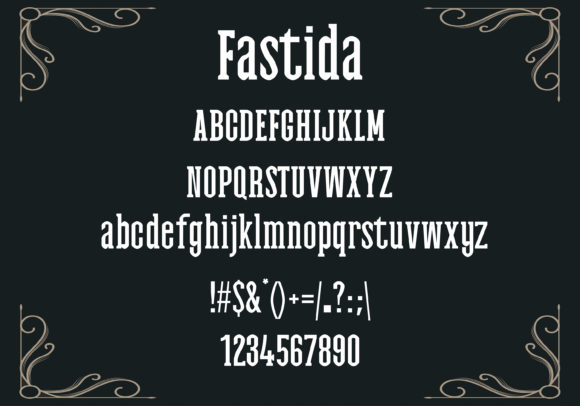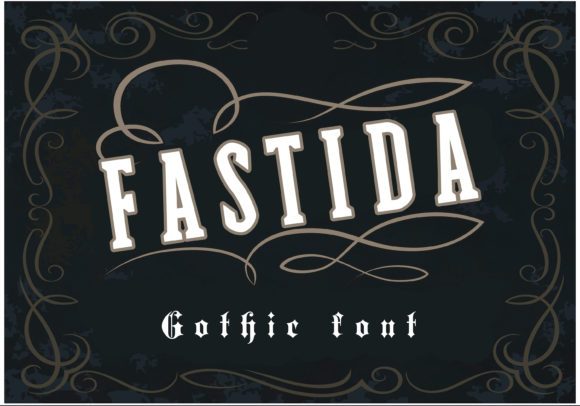
Introducing Fastida Font: The Bold and Authentic Serif Choice for Creative Projects
Are you tired of using the same old fonts for your creative projects? Look no further than Fastida, a bold and authentic serif font that’s sure to bring your ideas to life. In this article, we’ll take a closer look at what makes Fastida special and how you can use it to elevate your designs.
The Characteristics of Fastida Font
Fastida is a serif font that exudes confidence and sophistication. Its bold and sturdy design makes it perfect for headlines, titles, and any other text that needs to make a statement. The font’s authentic feel is reminiscent of classic typography, but with a modern twist that sets it apart from more traditional serif fonts.
One of the standout features of Fastida is its excellent legibility. Even at smaller sizes, the font remains clear and easy to read, making it suitable for a wide range of applications, from print materials to digital displays.
Using Fastida in Your Creative Projects
So, how can you use Fastida to bring your creative ideas to life? Here are a few ideas to get you started:
- Headlines and Titles: Fastida’s bold design makes it perfect for headlines and titles. Use it to grab attention and draw the reader in.
- Branding and Identity: Create a lasting impression with Fastida’s unique and authentic feel. Use it to develop a strong brand identity that sets you apart from the competition.
- Print Materials: From brochures to business cards, Fastida is a versatile font that works well in a variety of print materials.
- Digital Displays: Fastida’s legibility and bold design make it an excellent choice for digital displays, including website headers, social media graphics, and more.
Why Designers and Crafters Love Fastida
So, why are designers and crafters raving about Fastida? Here are a few reasons:
- Unique and Authentic: Fastida’s bold and authentic design sets it apart from more generic fonts.
- Versatile: Fastida is a versatile font that works well in a wide range of applications.
- Easy to Read: Fastida’s excellent legibility makes it easy to read, even at smaller sizes.
- High-Quality: Fastida is a high-quality font that’s designed to deliver exceptional results.
Getting Started with Fastida
Ready to give Fastida a try? Here are a few tips to help you get started:
- Experiment with Different Sizes: Experiment with different sizes to see how Fastida looks at various scales.
- Pair it with Other Fonts: Try pairing Fastida with other fonts to create a unique and interesting contrast.
- Have Fun: Most importantly, have fun and be creative with Fastida!
In conclusion, Fastida is a bold and authentic serif font that’s perfect for designers and crafters looking to add a touch of sophistication and elegance to their creative projects. With its excellent legibility, versatile design, and high-quality construction, Fastida is sure to become a favorite in your font collection. So why wait? Give Fastida a try today and see how it can bring your ideas to life!